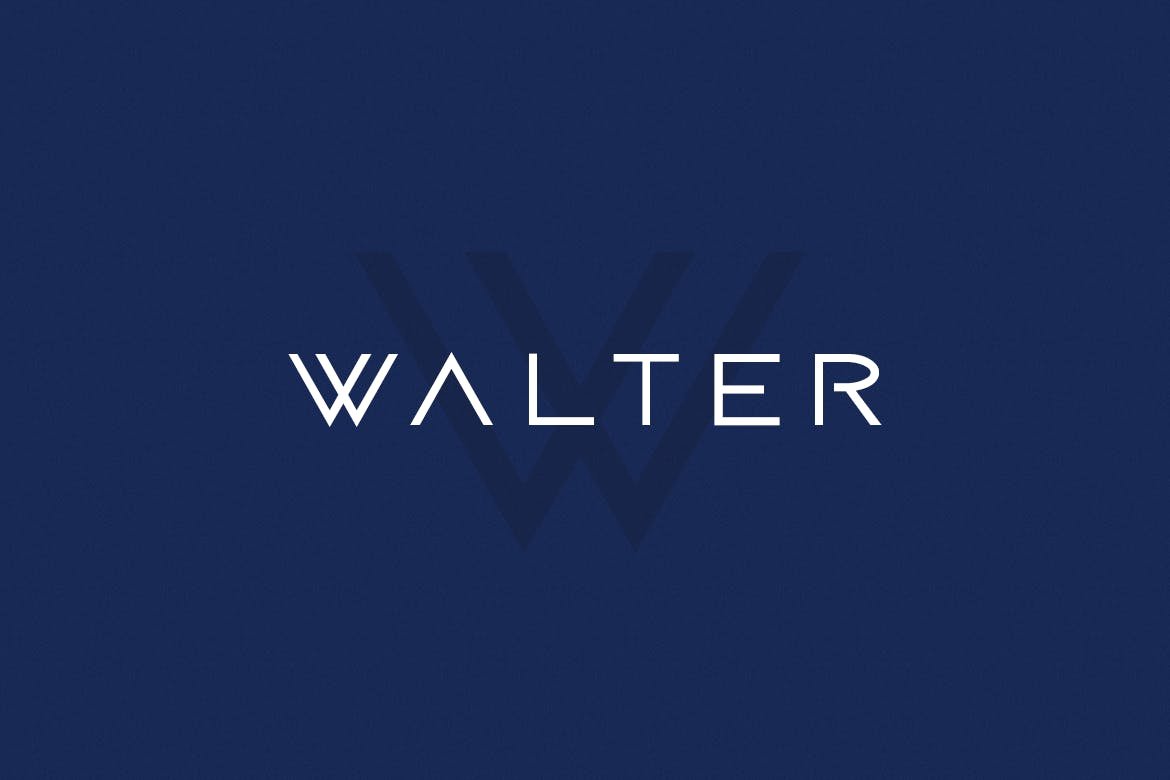
Walter Font
Walter Font a modern typeface specifically made for fashion, sci-fi, a cinematic and unique statement with a special charm that makes it perfect for beautiful headlines, branding, logotypes & display usage. Please see the examples shown above to get an idea about the capability of this typeface.
WALTER comes with 5 weights (Thin, Light, Regular, Bold & Heavy) along with italic versions of all weights.